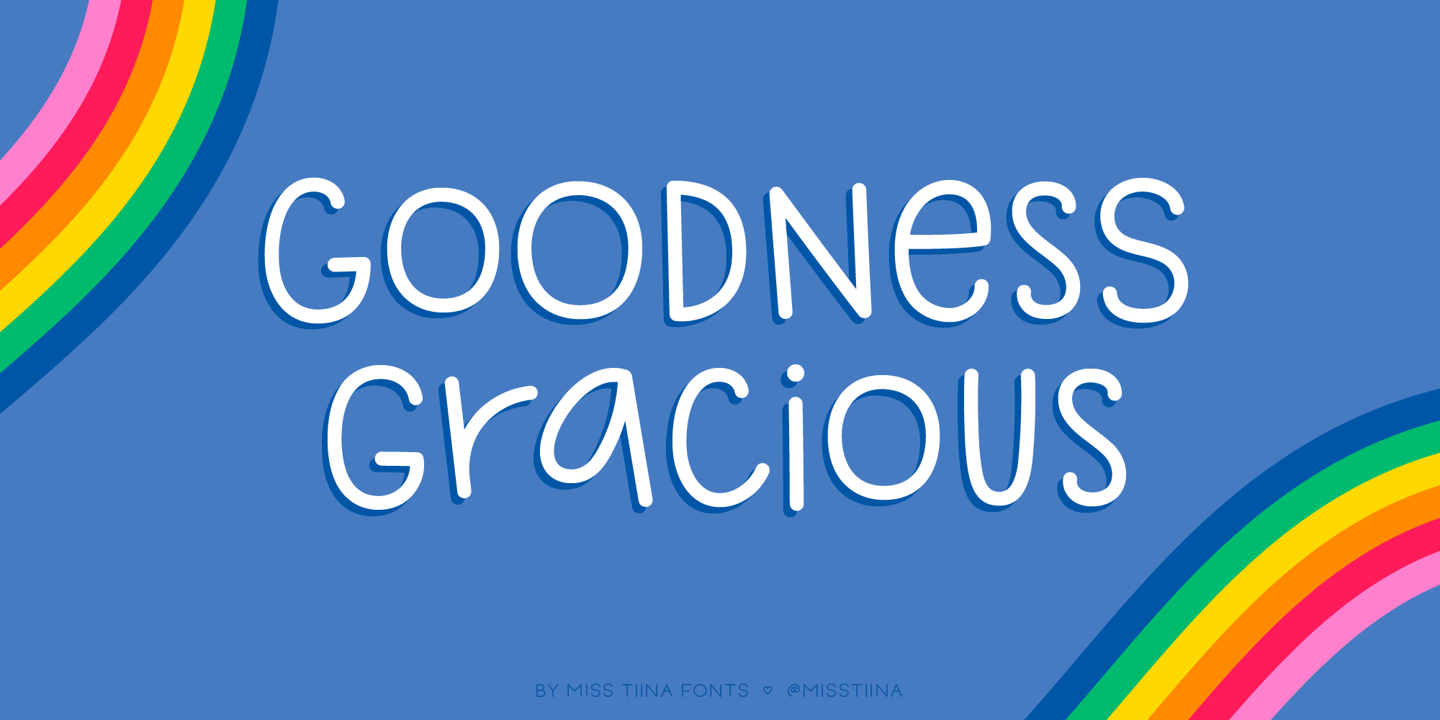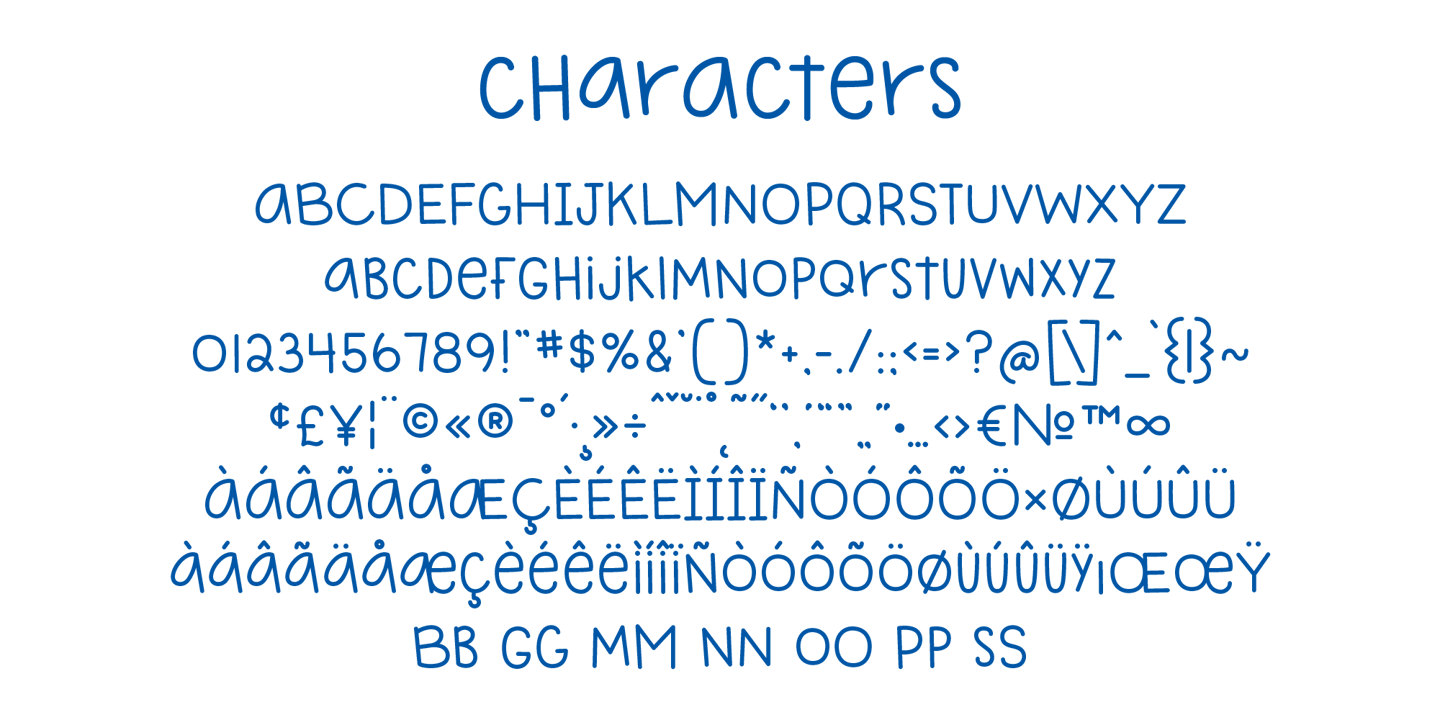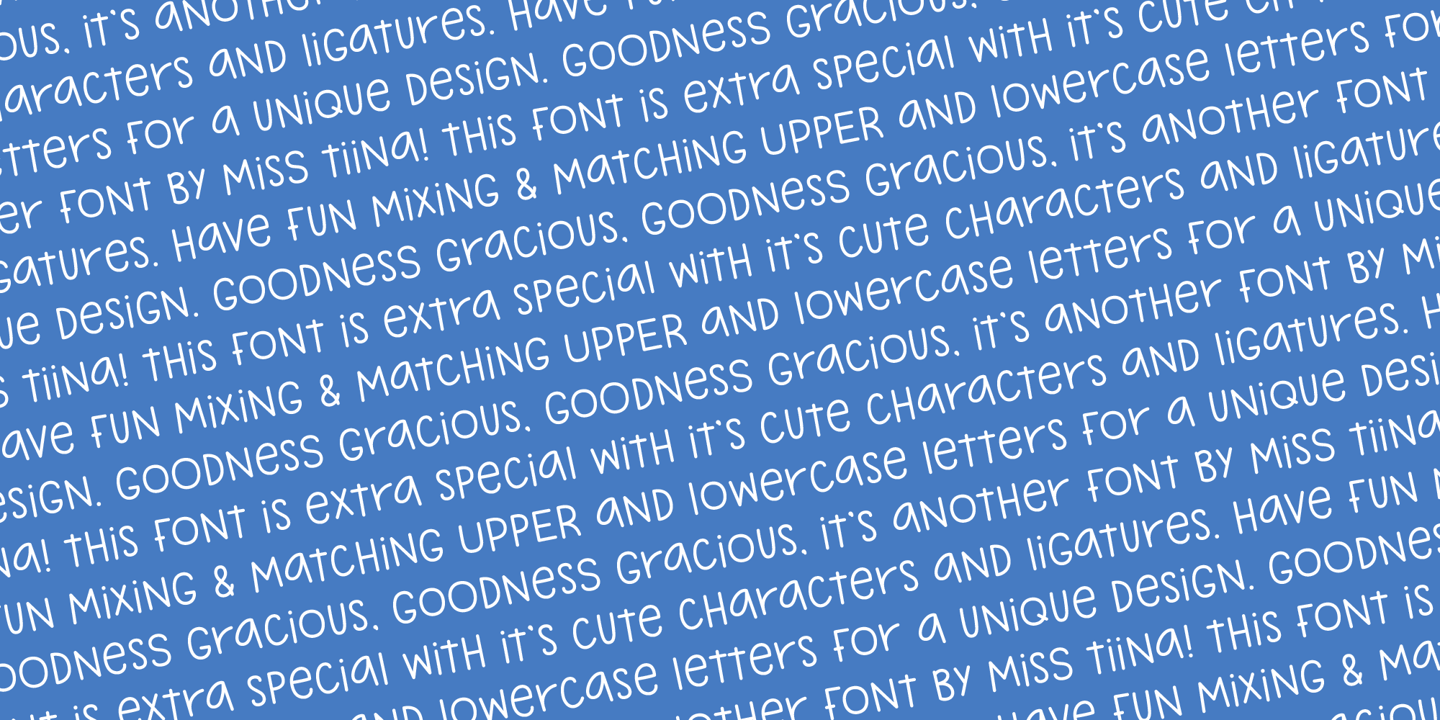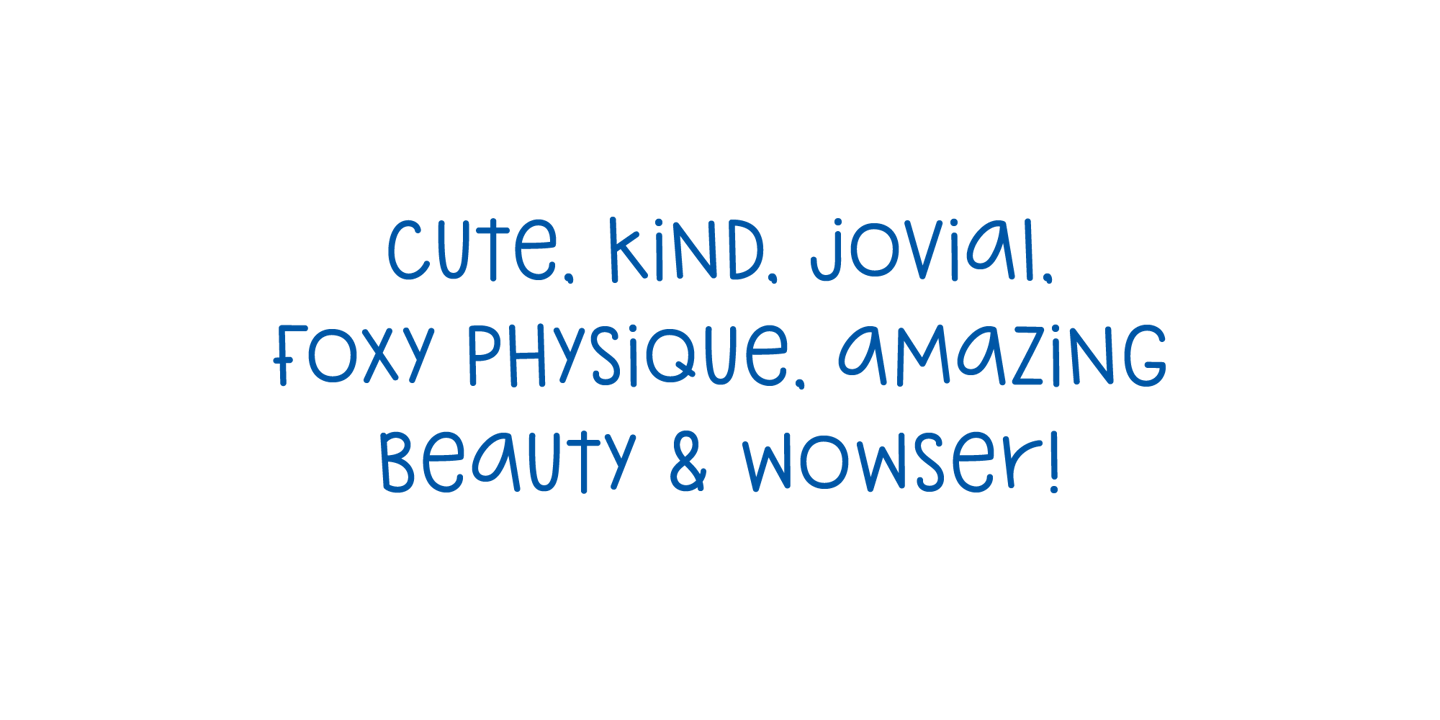
Goodness Gracious, it’s another font by Miss Tiina! This font is extra special with its cute handwritten characters and ligatures. It's perfect for adding a personal touch to your designs, it has a bouncy, playful feel that’s sure to bring a smile to your audience. Have fun mixing & matching upper and lowercase letters for a unique design.